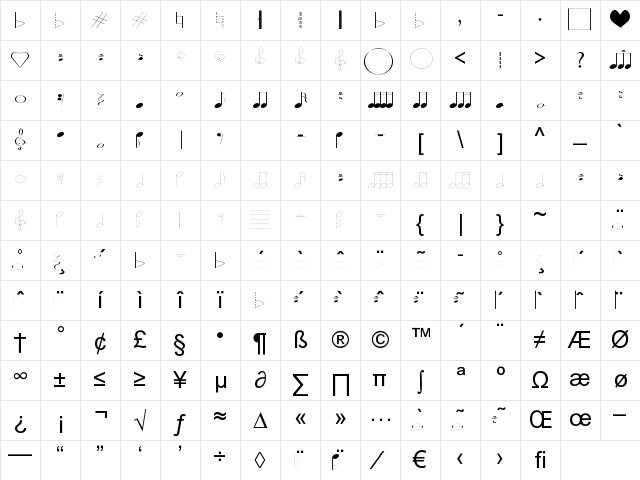
lasolsi_figuras Regular
Design Context for lasolsi_figuras
lasolsi_figuras is a composed and adaptable typeface that performs quietly and consistently across a wide range of design contexts.